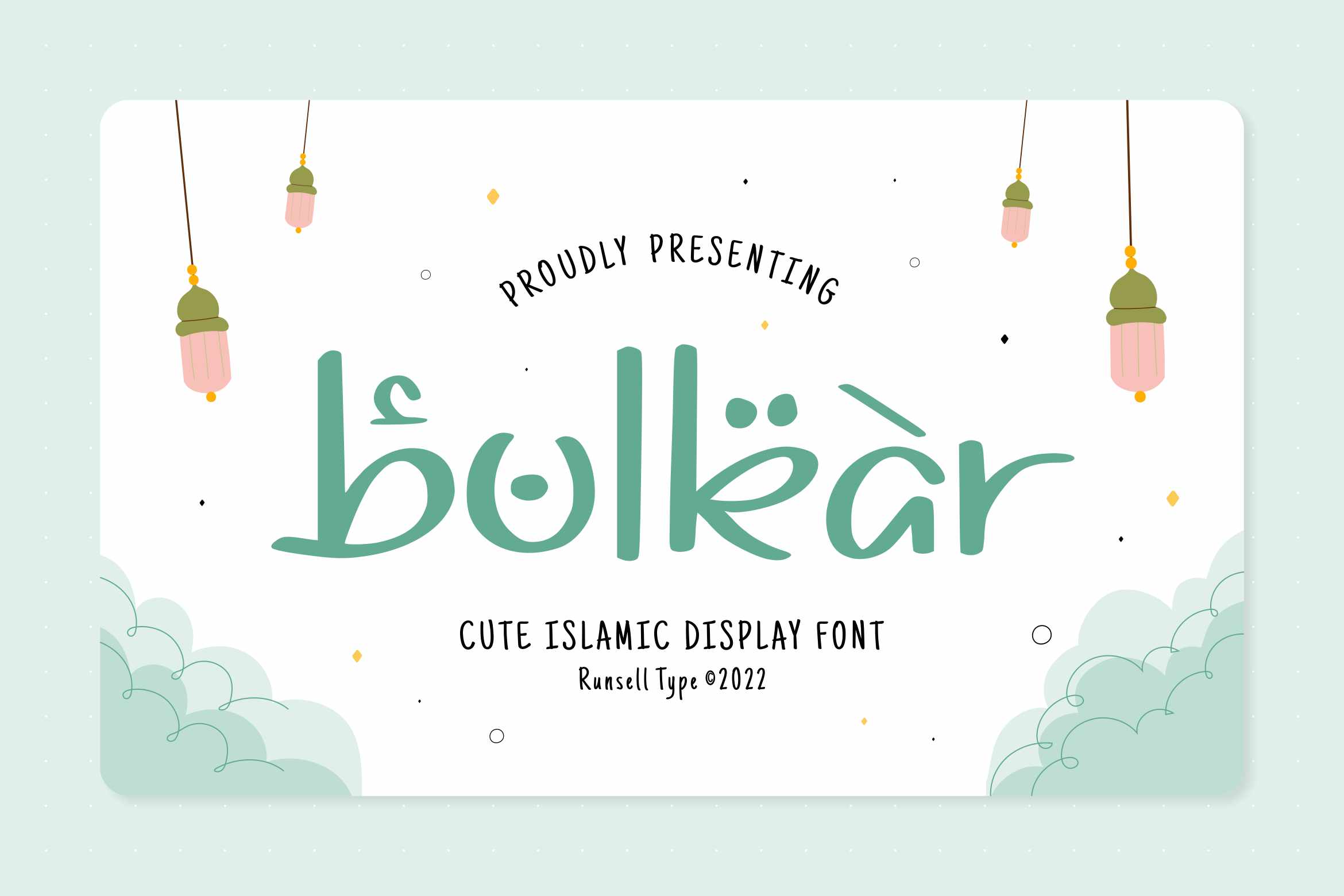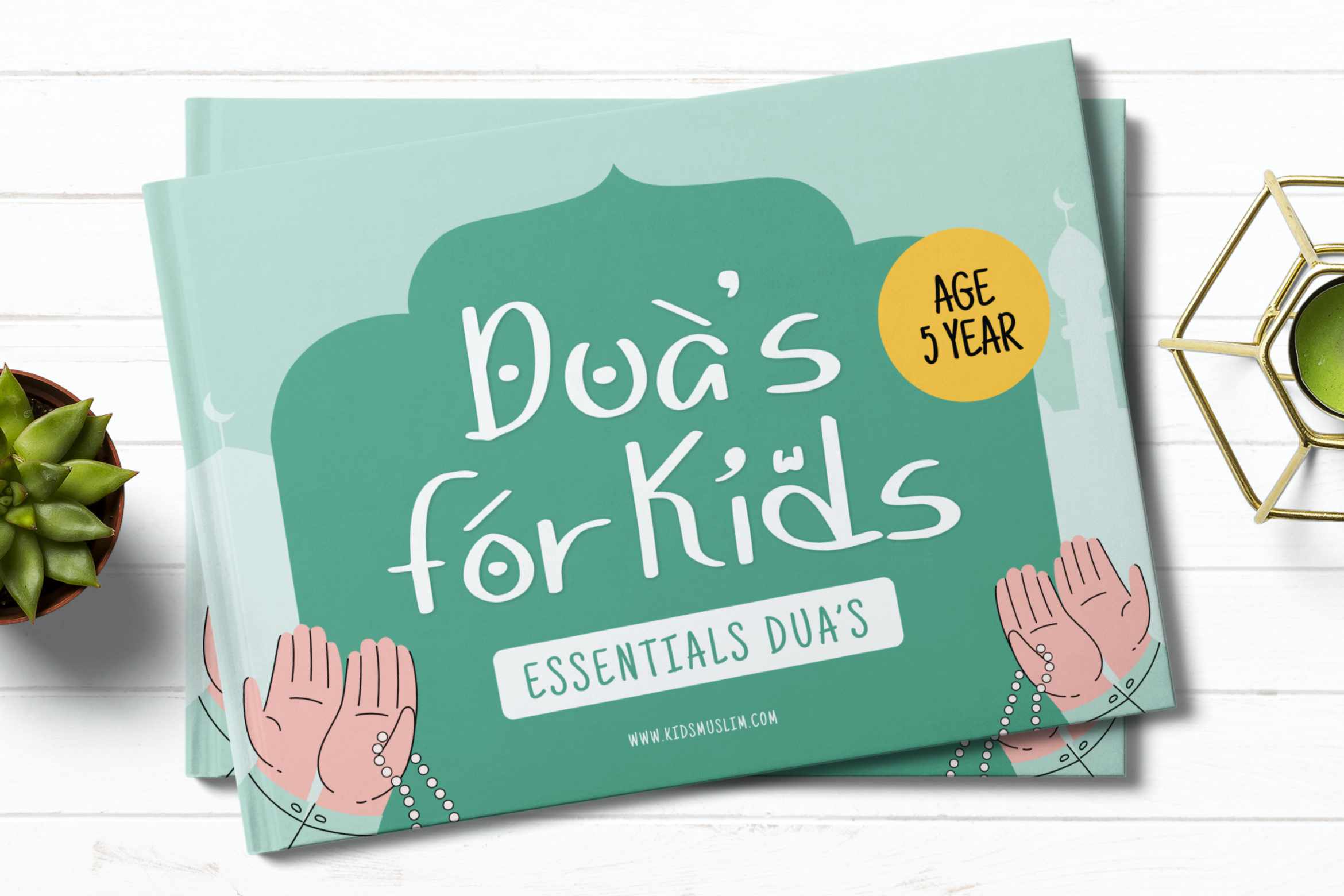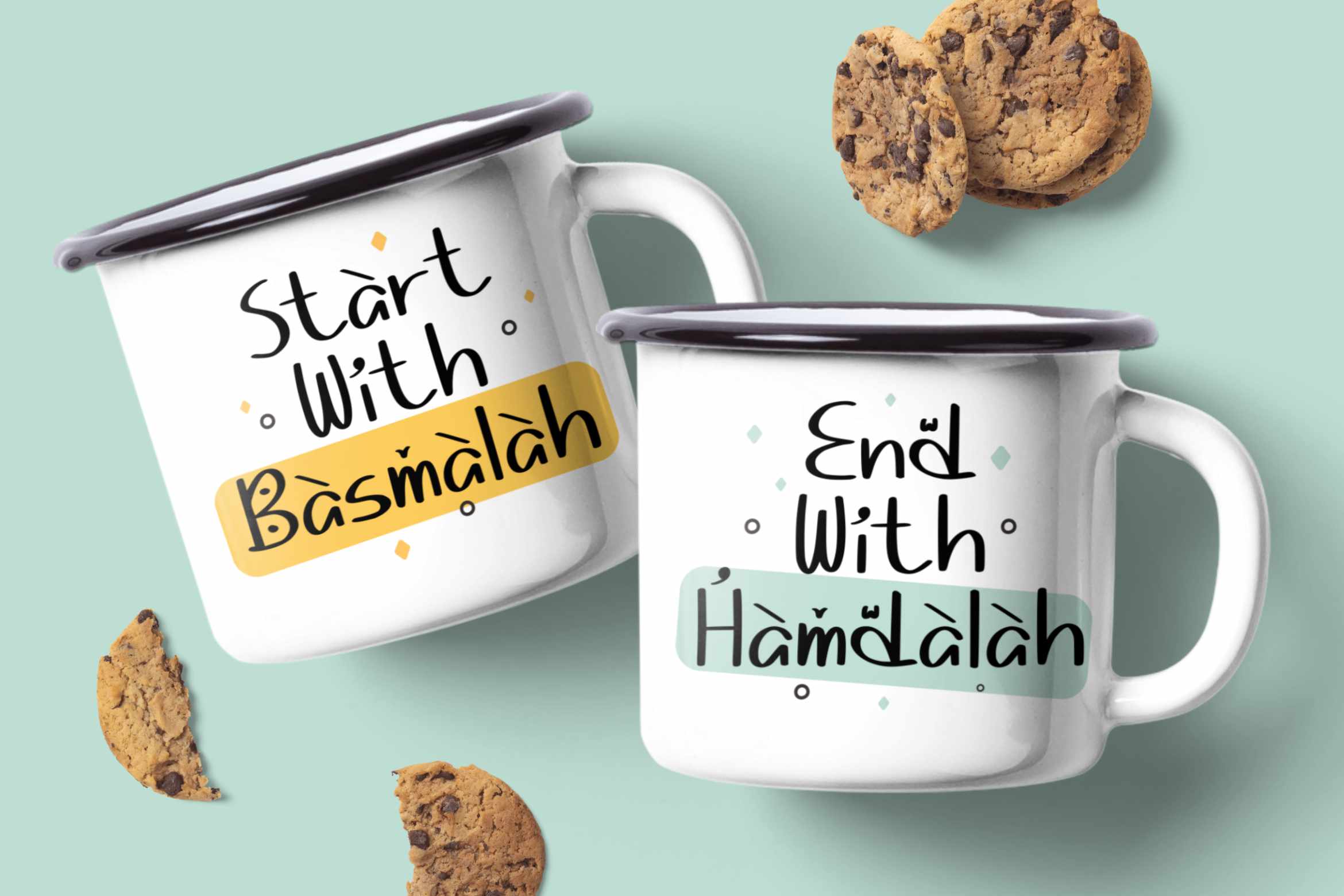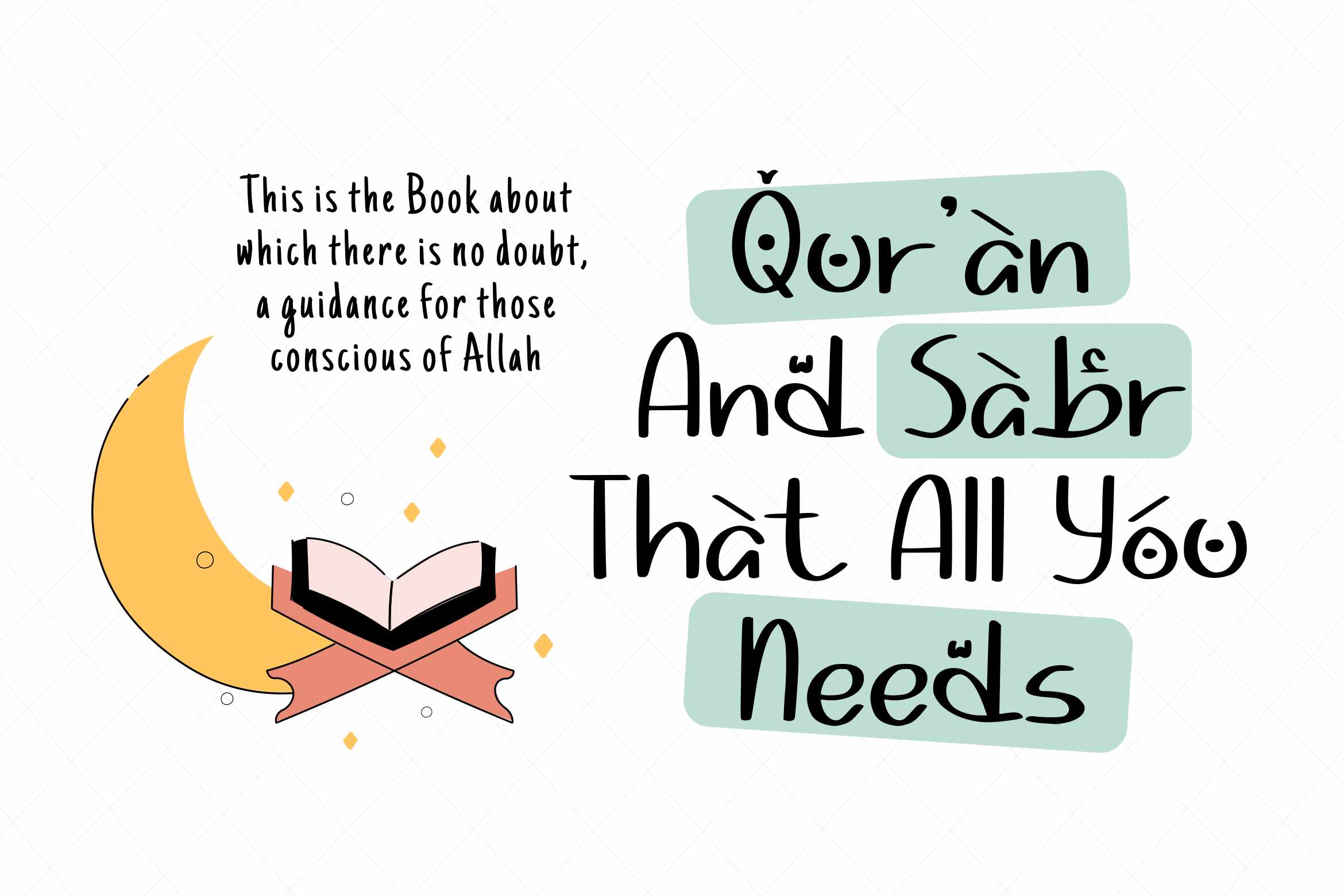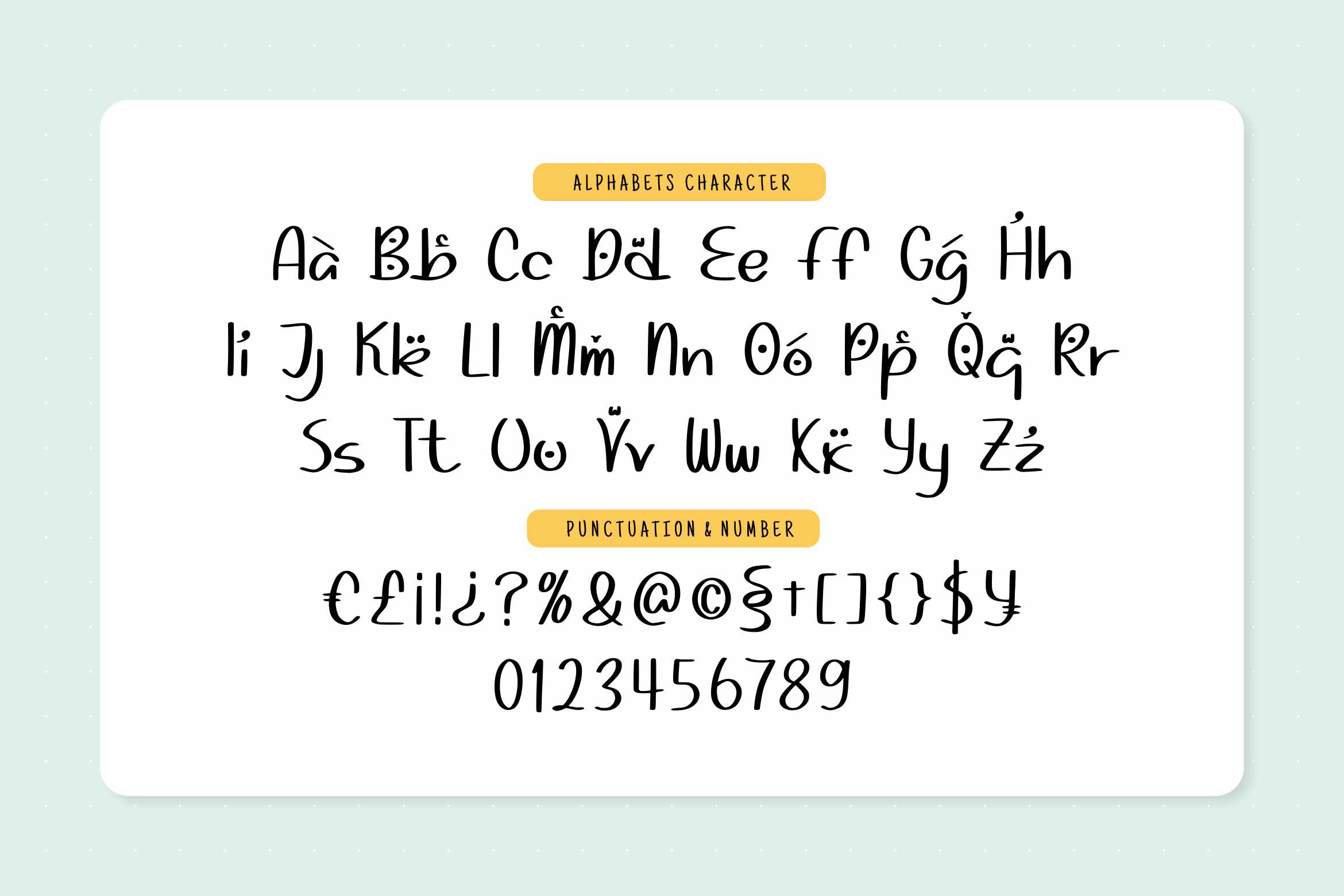
Bulkar is a playful and cheerful Islamic-themed display font designed to bring warmth and friendliness to your creative projects. Its rounded letterforms, quirky diacritics, and handwritten style give it a youthful spirit, perfect for children’s books, educational tools, and fun Islamic merchandise. The font is legible and approachable, capturing the balance between Islamic aesthetics and modern kid-friendly design.
With a full set of multilingual characters, alternate glyphs, and extended symbols, Bulkar is great for crafting charming Ramadan prints, Muslim kids’ learning resources, mugs, or Eid cards. Its soft curves and whimsical energy make it an ideal choice for conveying joy, encouragement, and faith in an accessible way.
Bulkar